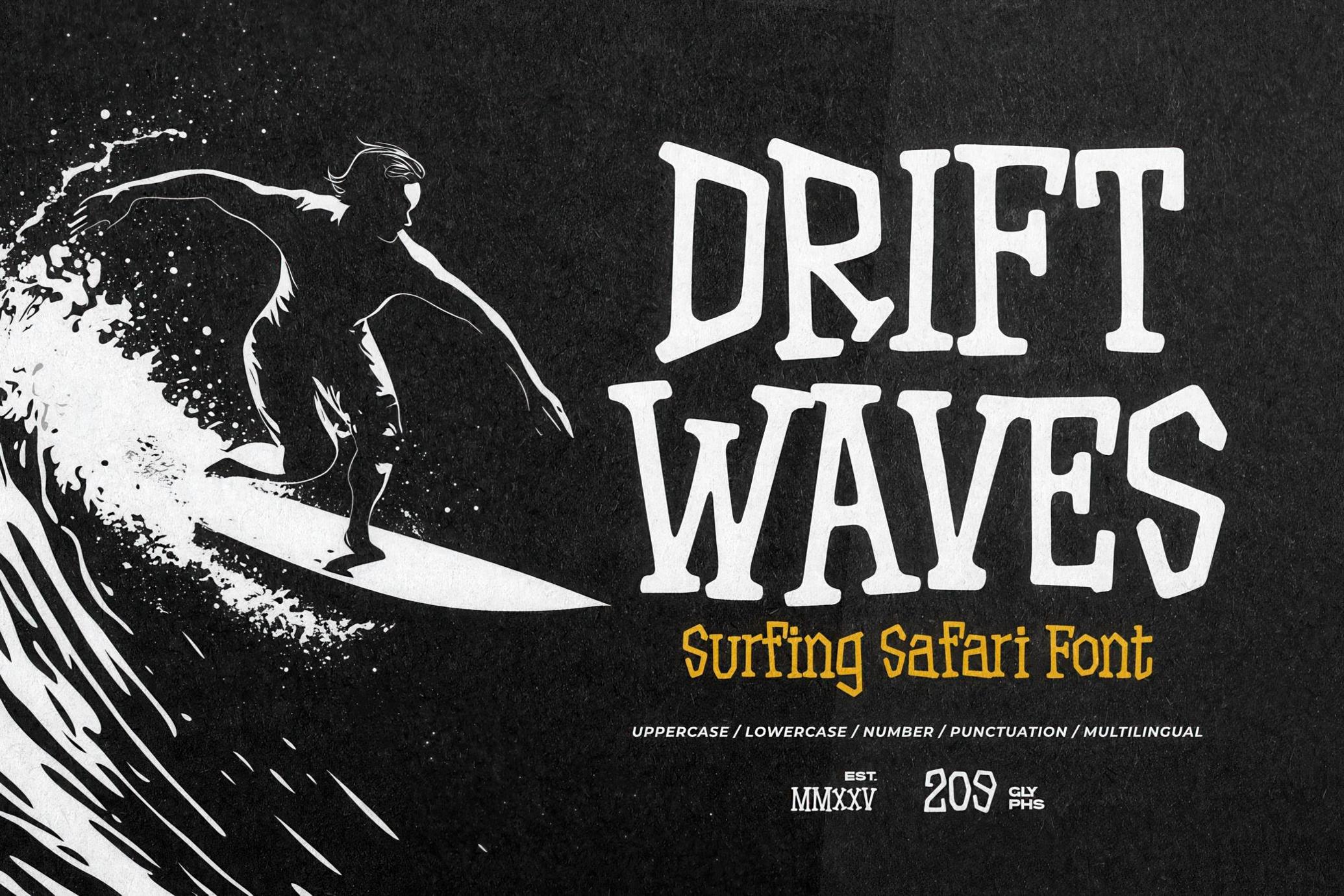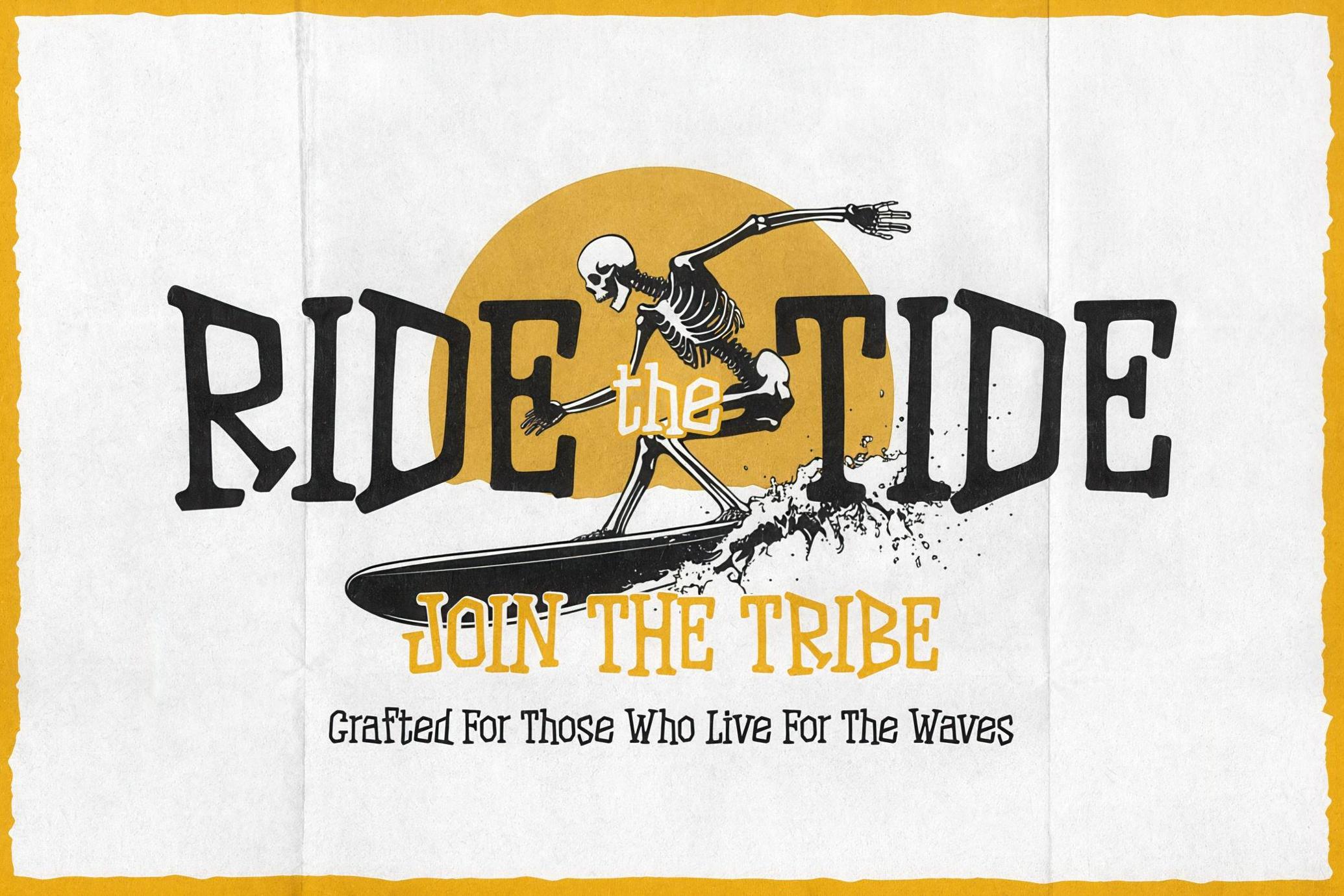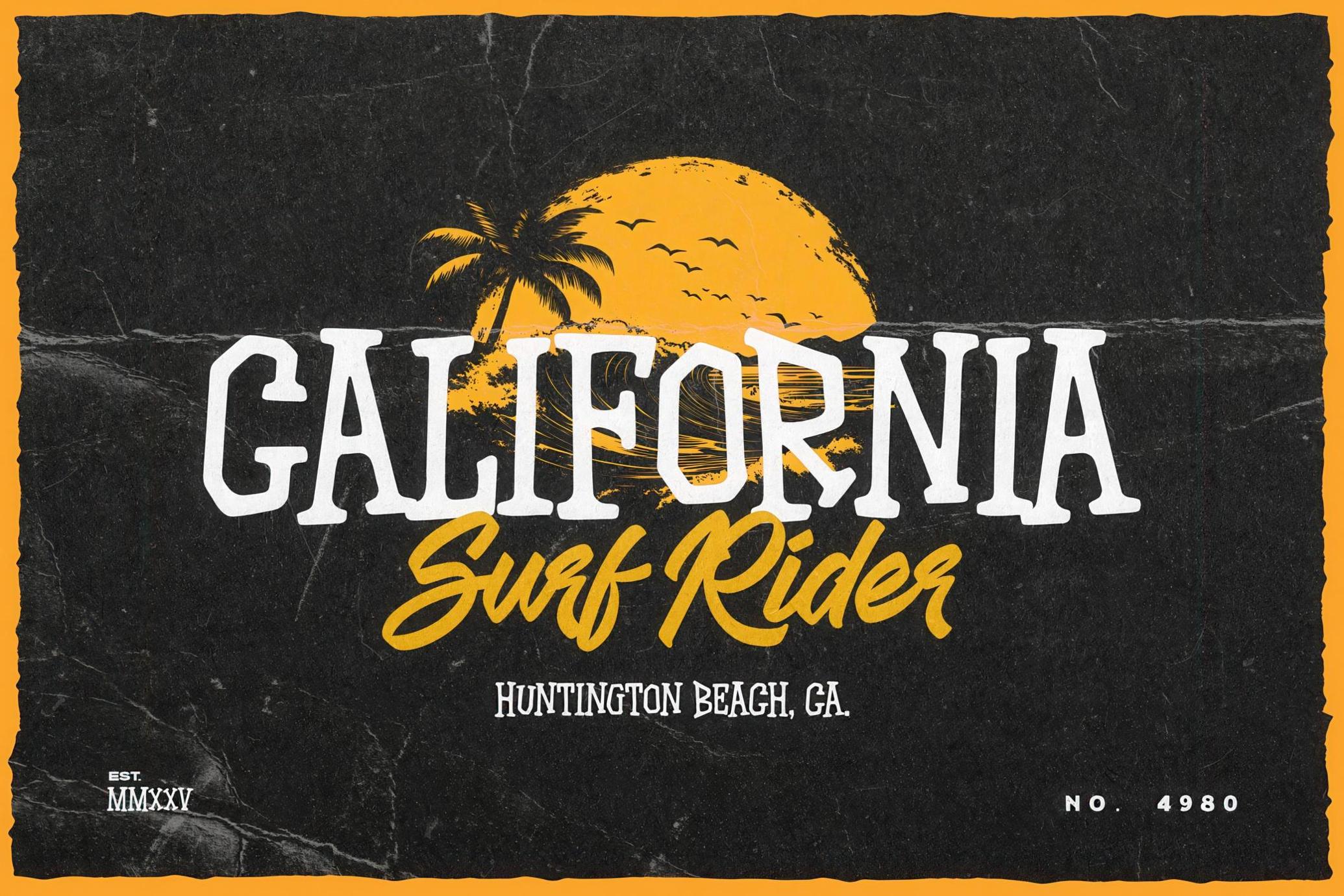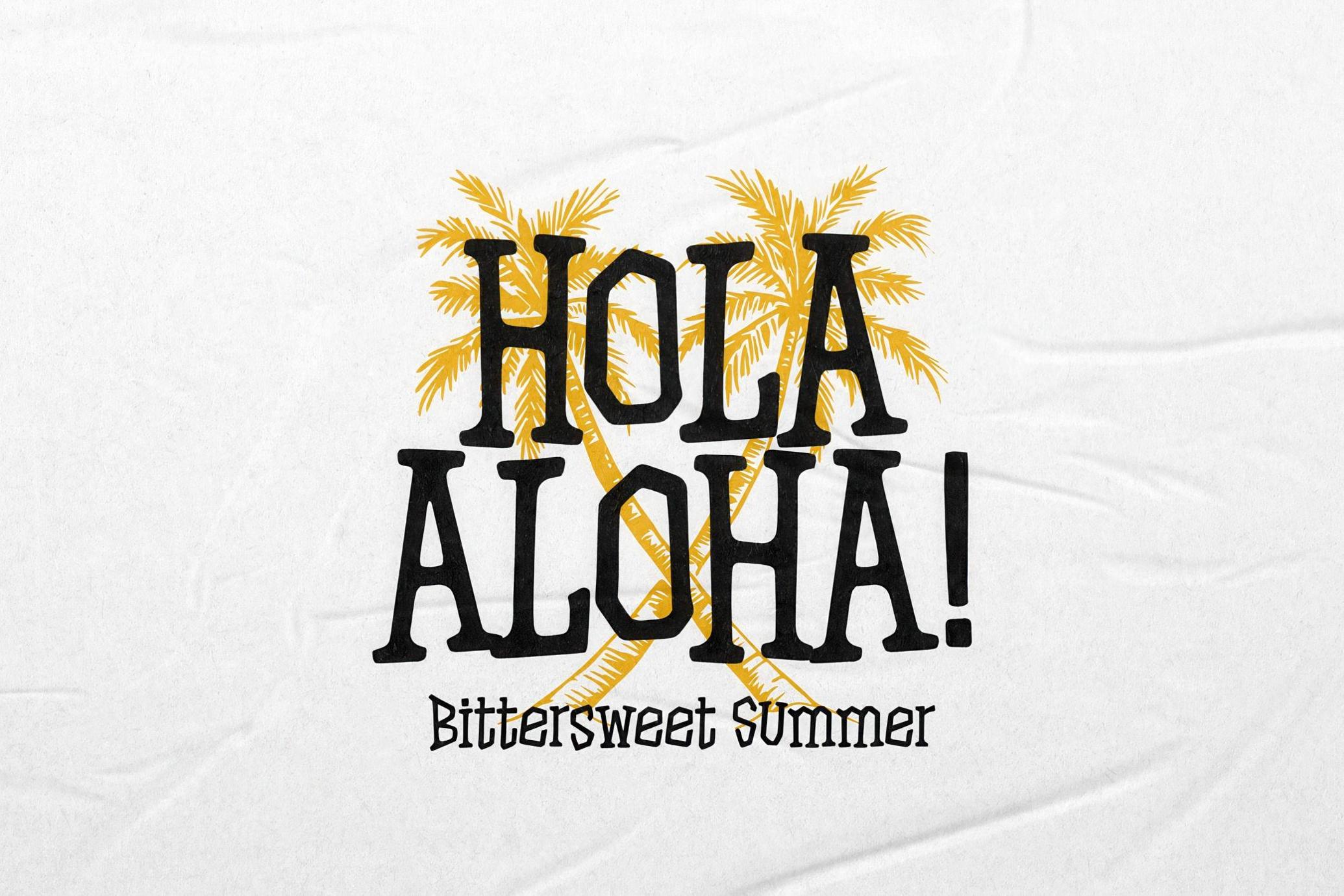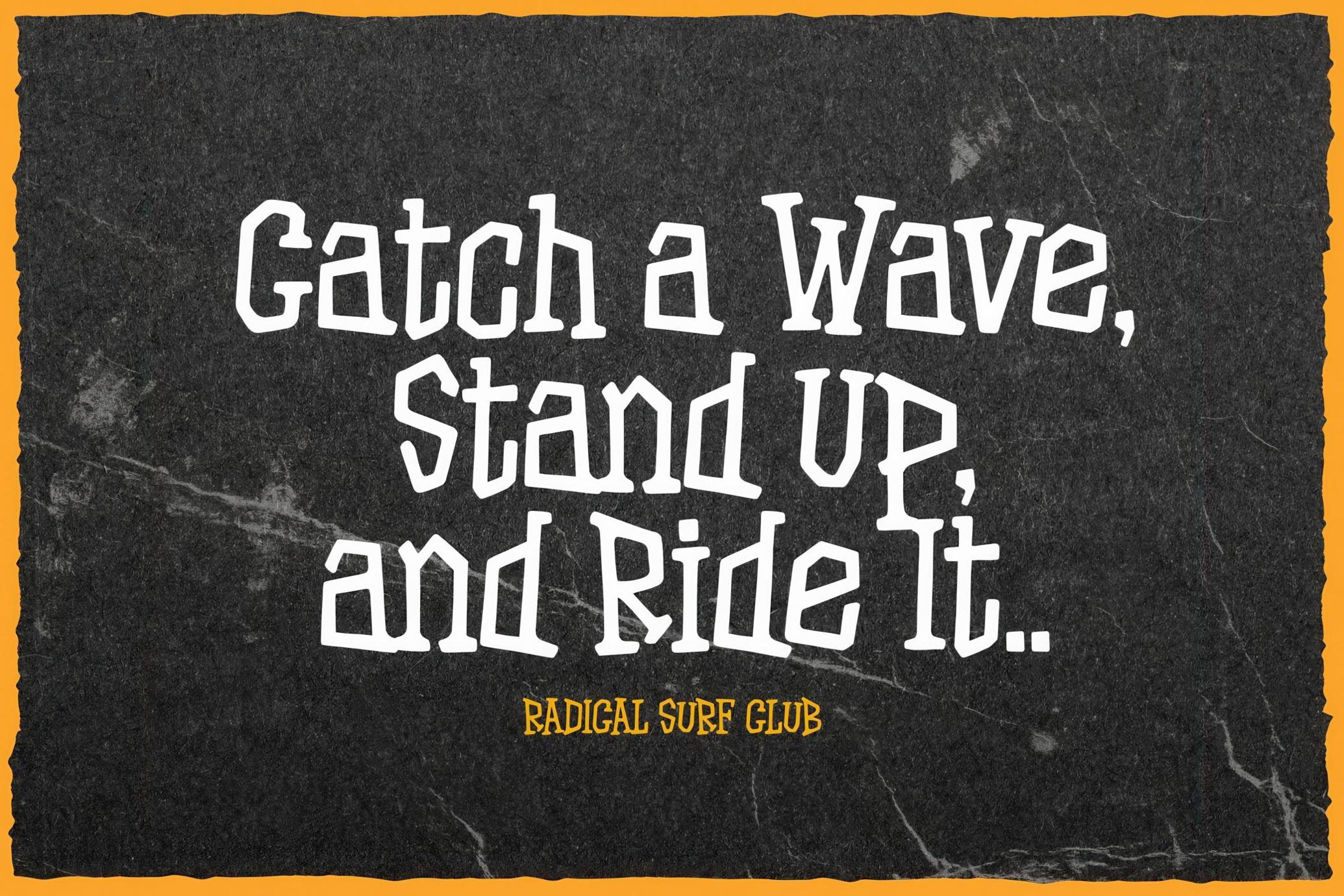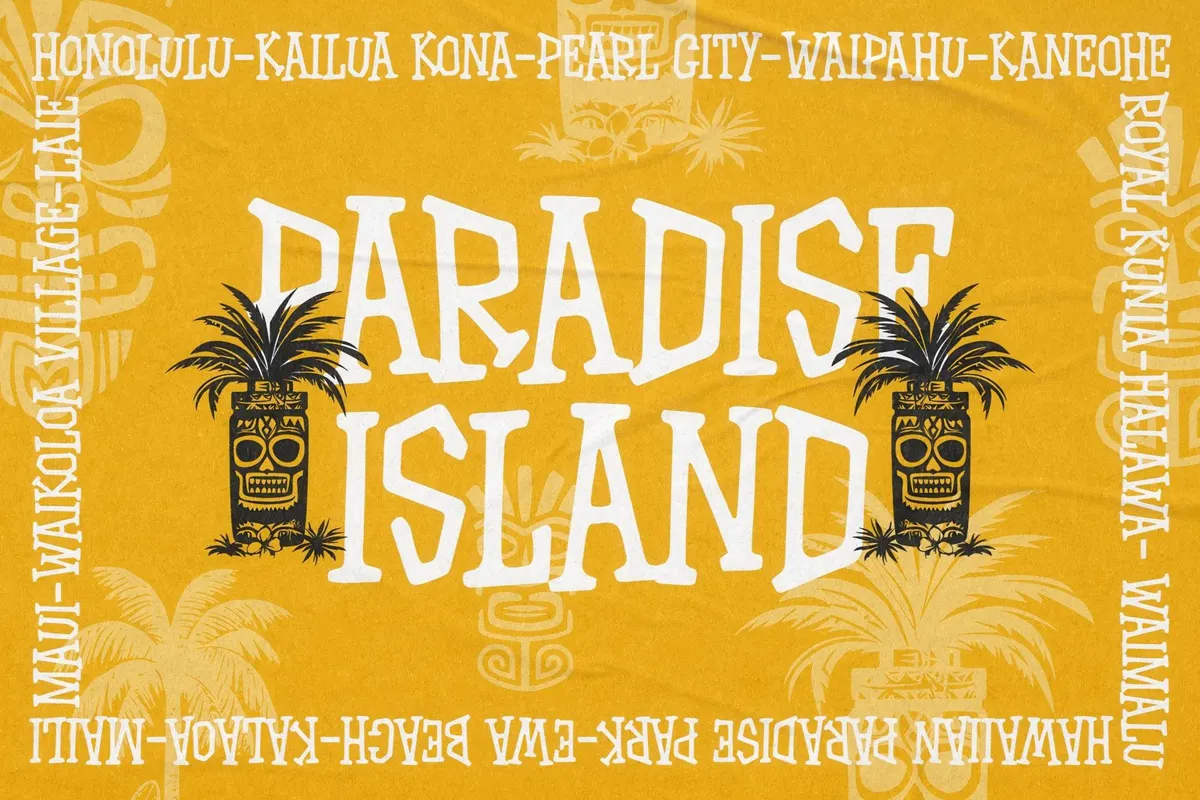
Drift Waves — Surfing Safari Font
Drift Waves
Drift Waves is a sun-soaked display typeface that rides the same wave. It has a hand-drawn flow that captures the easygoing vibe of beach life. Think retro surfboards, sun-faded signs, and postcards from places with names like “Somewhere Nice.” Its uneven, breezy curves give off that perfect mix of carefree and cool. With 209 glyphs, multilingual support, and full sets of uppercase, lowercase, and punctuation, Drift Waves is ready for whatever the tide brings in. Use it for surfwear branding, event posters, and coastal café menus. It’s less of a font, more of a design element — anchored in beach culture, ready to break design symmetry in all the right ways.